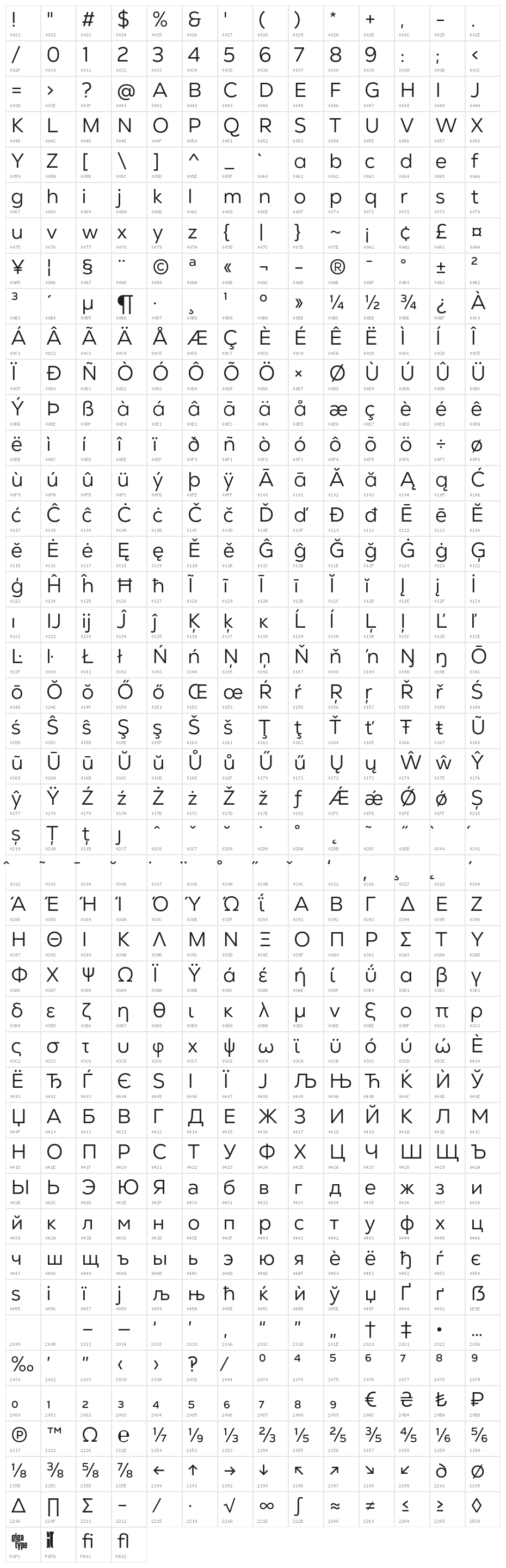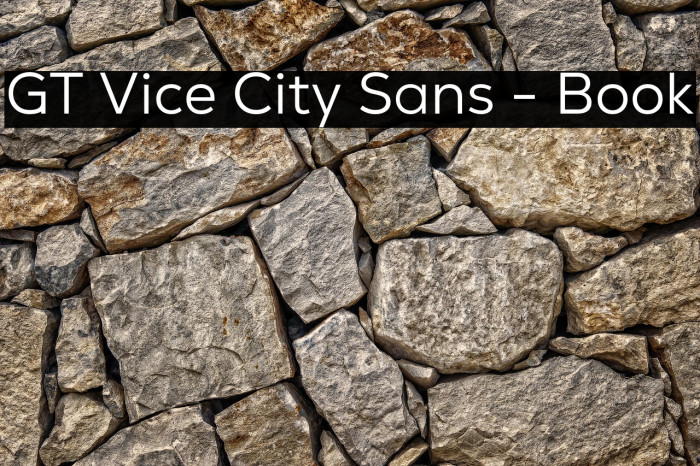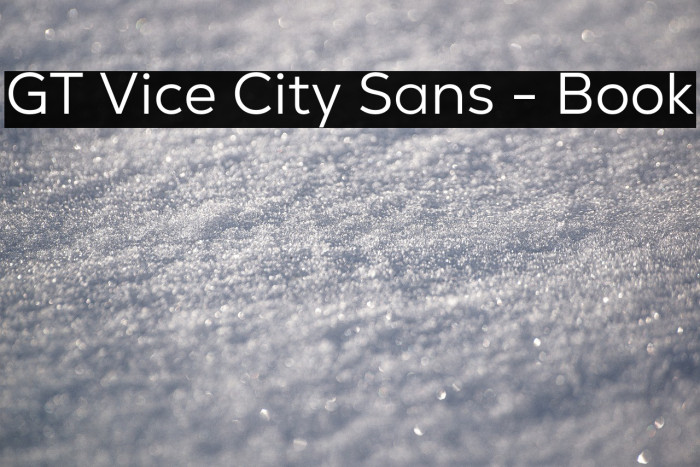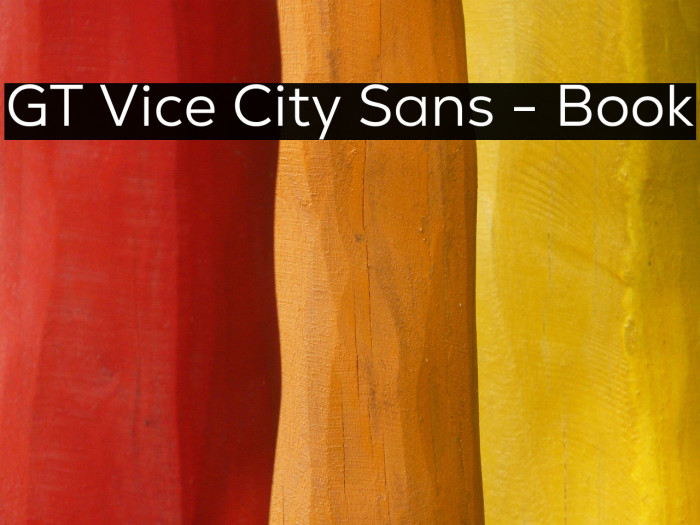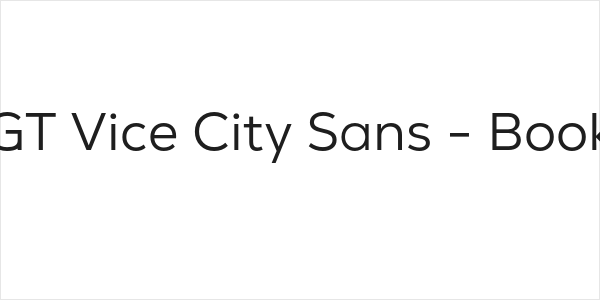
GT Vice City Sans - Book Font
GT Vice City Sans - Book Description
A clean and modern sans-serif font with uniform stroke width and geometric shapes.
| Proposed Projects | Branding, digital interfaces, print media. |